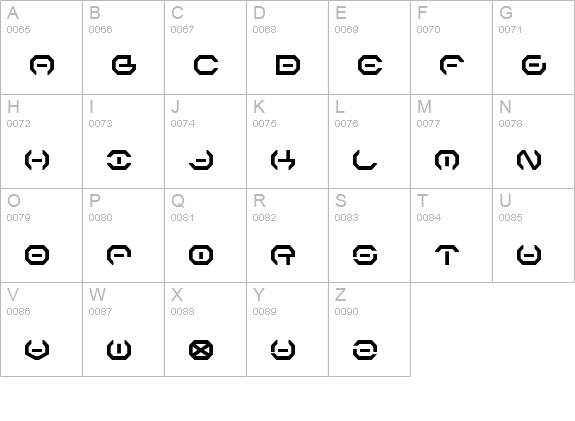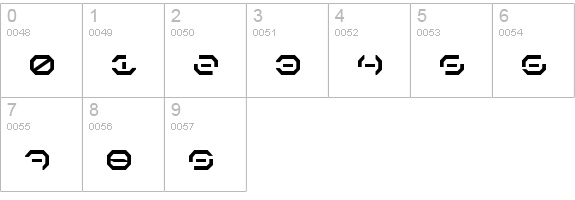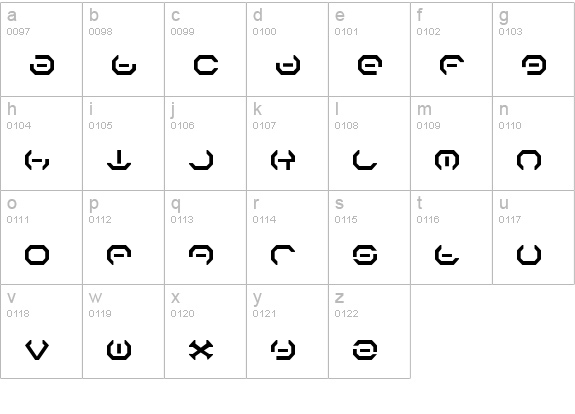
Alpha Sentry Font Details
Alpha Sentry font is a modern and sleek typeface that exudes strength and sophistication. With its bold lines and sharp edges, this font is perfect for creating eye-catching headlines, logos, and branding materials. The versatile design of Alpha Sentry makes it suitable for a wide range of projects, from posters to website design. What sets Alpha Sentry font apart is not only its striking appearance, but also the fact that it is available for free. You can easily download this font from FontsMarket.com and start using it in your creative endeavors without any cost. Whether you are a graphic designer, a marketer, or a hobbyist looking to spice up your projects, Alpha Sentry font is a fantastic choice that won't break the bank. Add a touch of modern elegance to your designs with Alpha Sentry font, and make a bold statement that will capture the attention of your audience. Download this free font today and let your creativity shine!